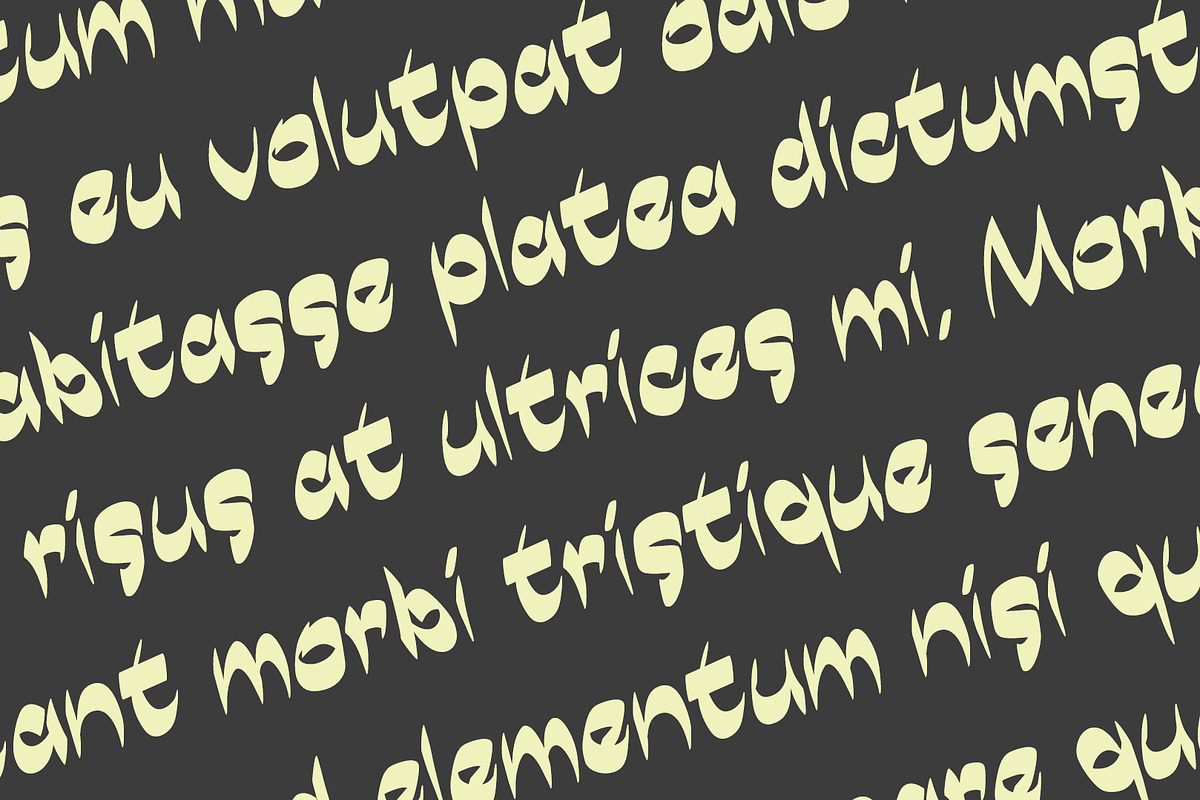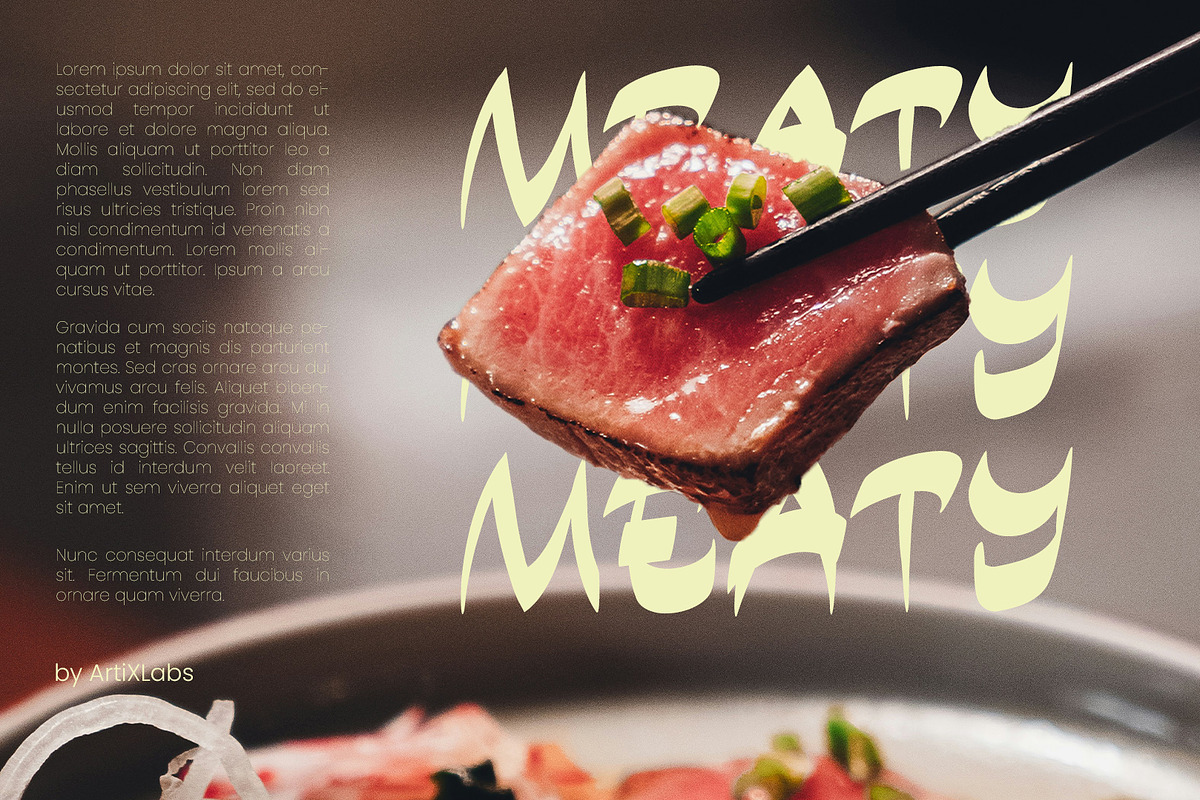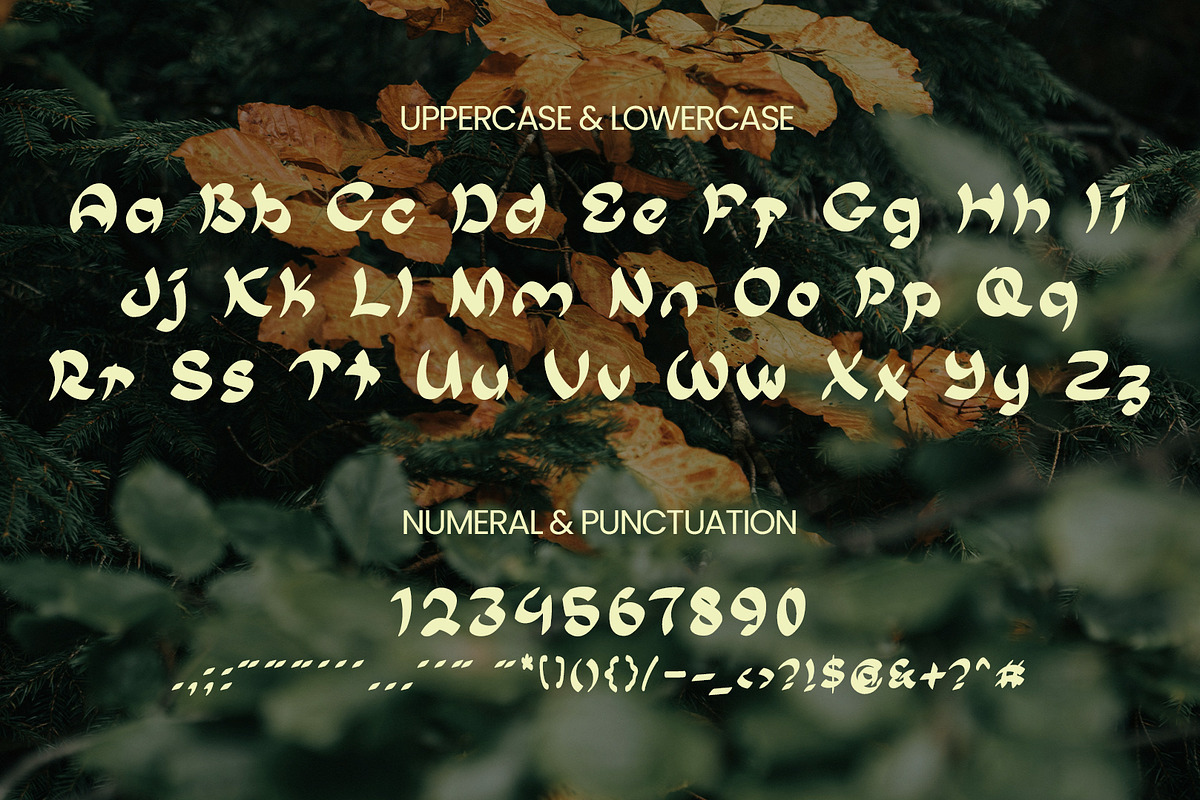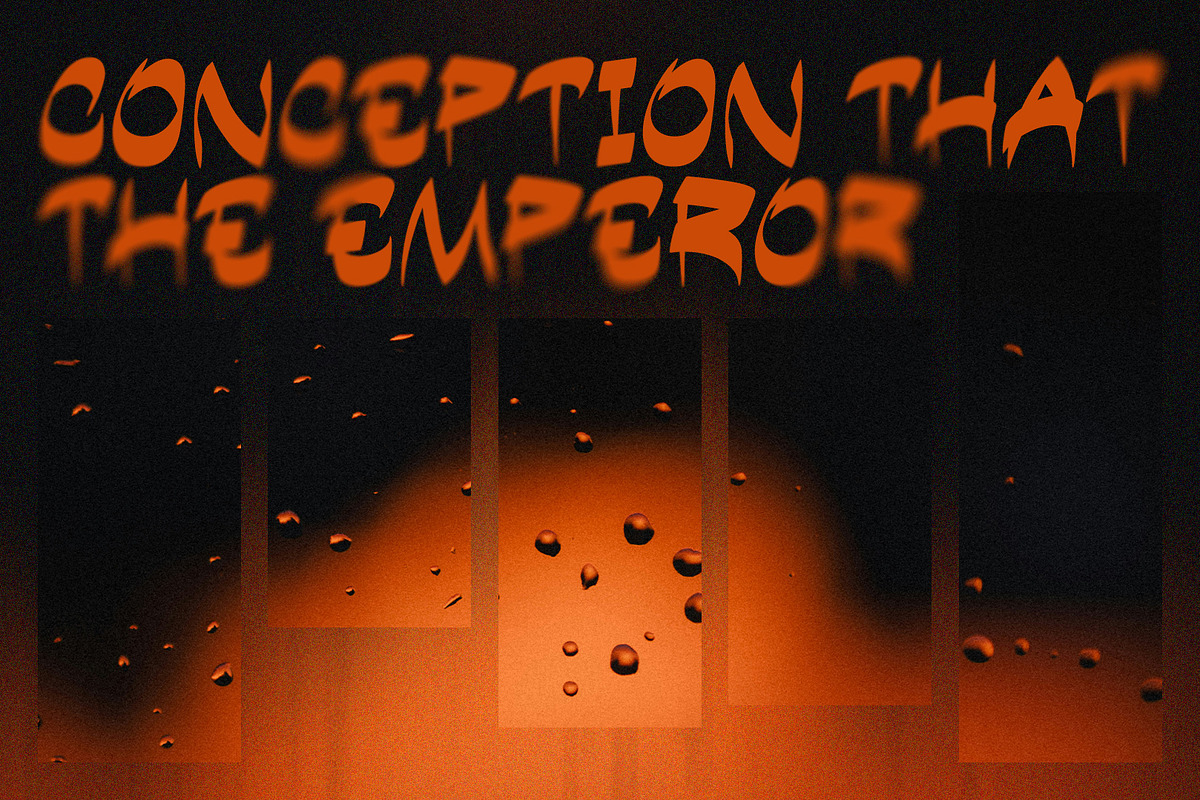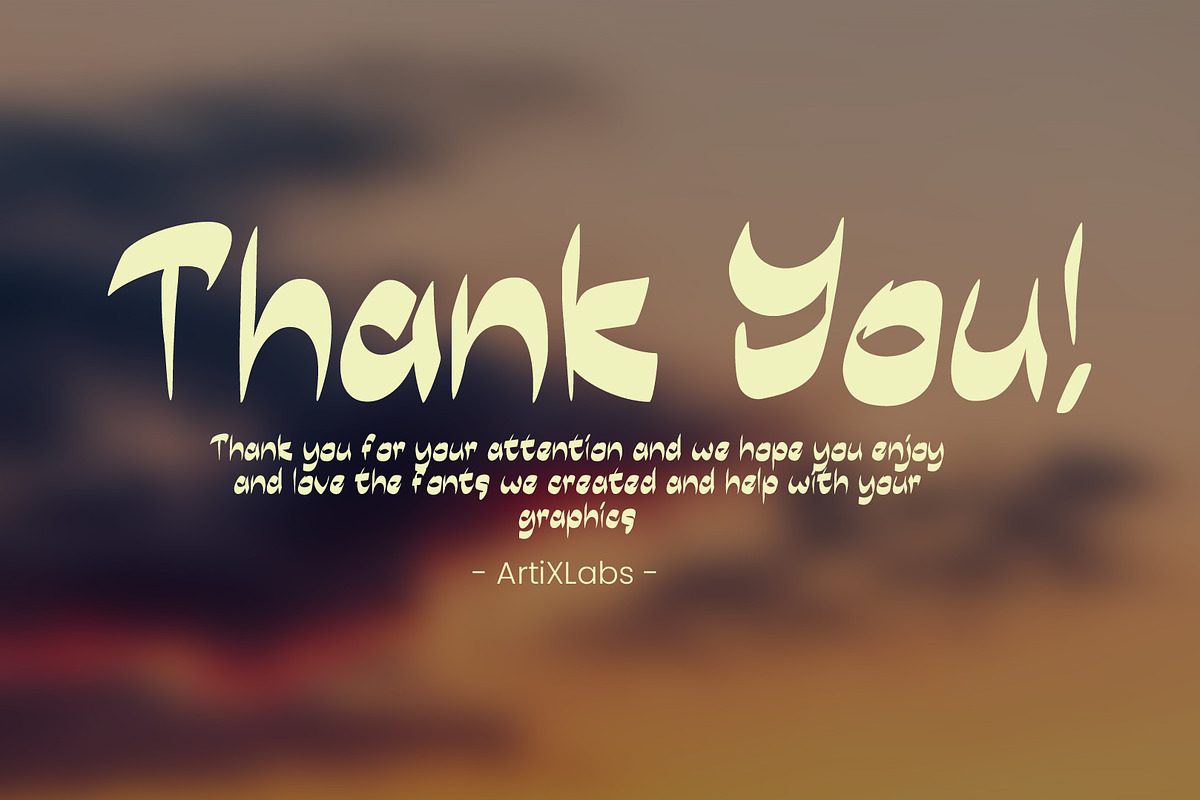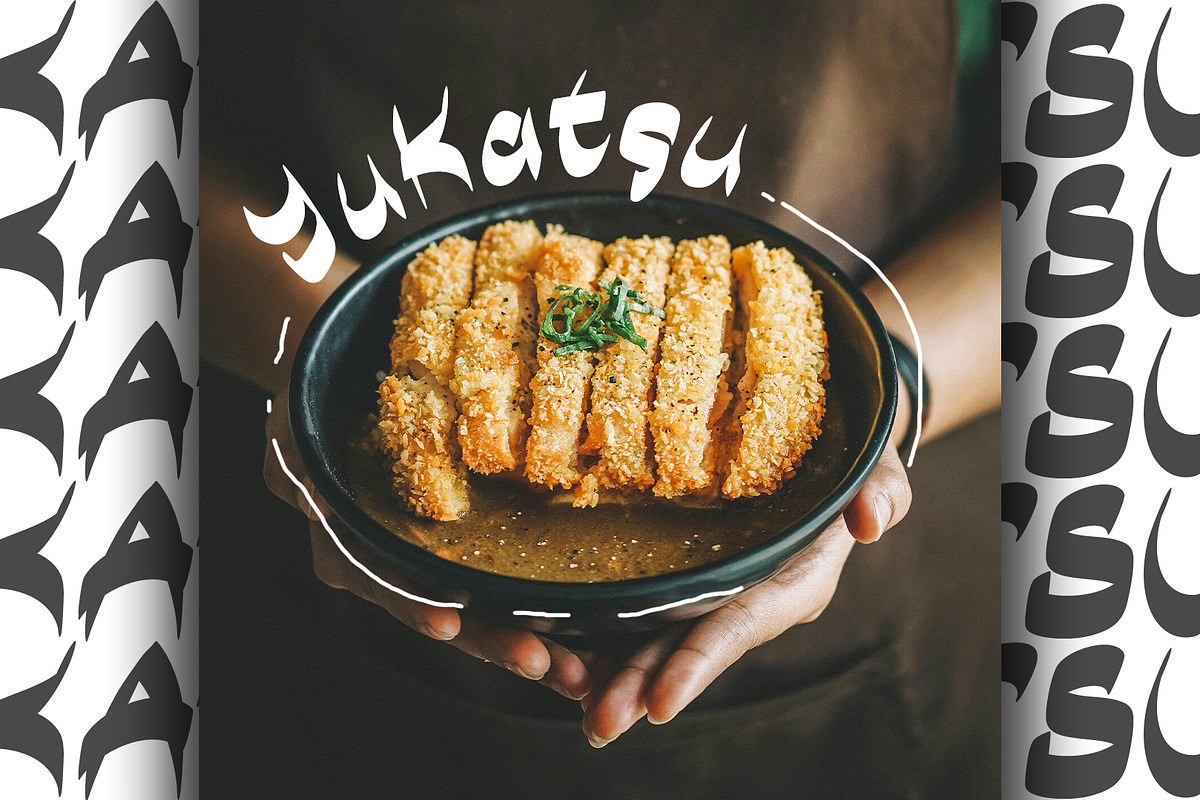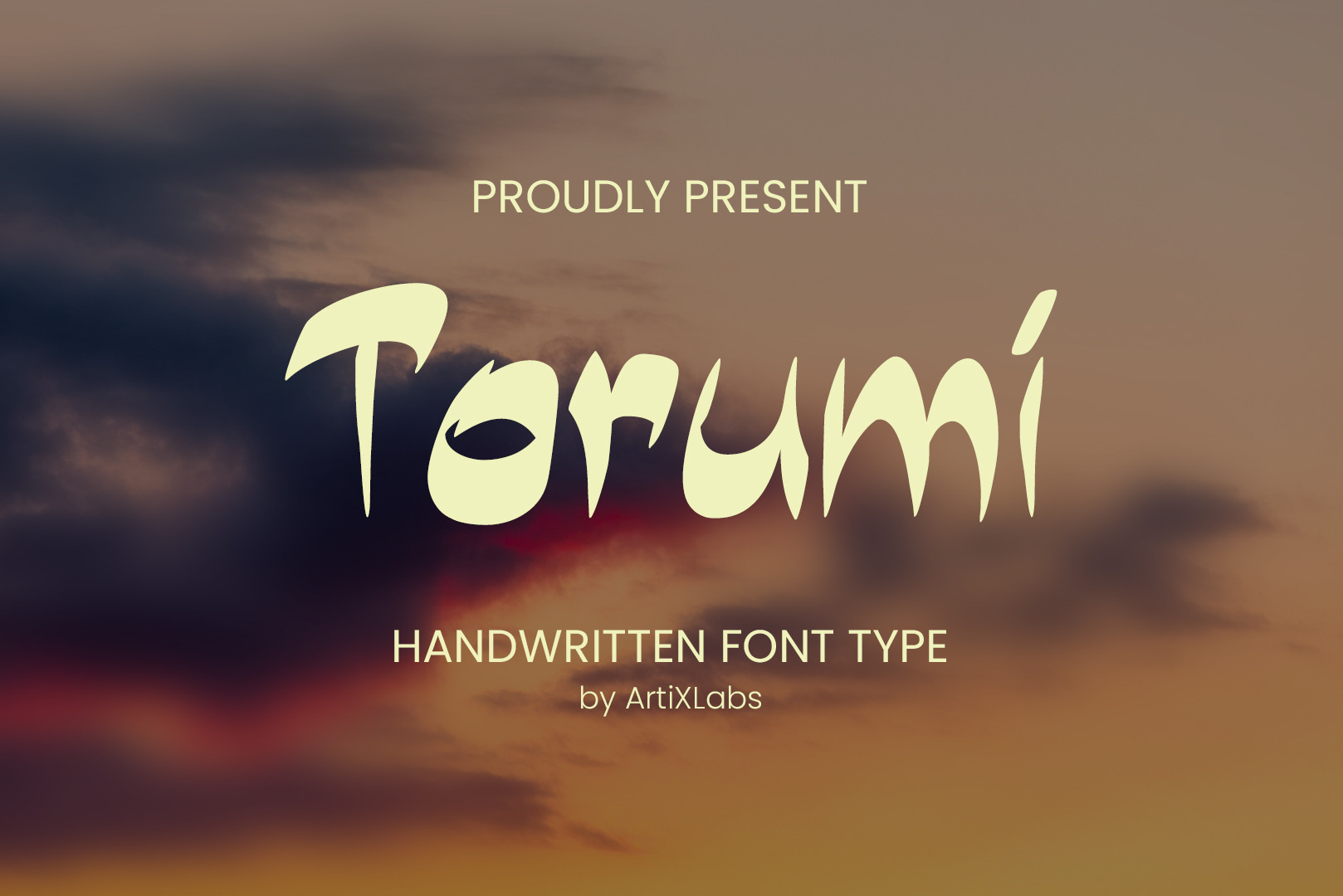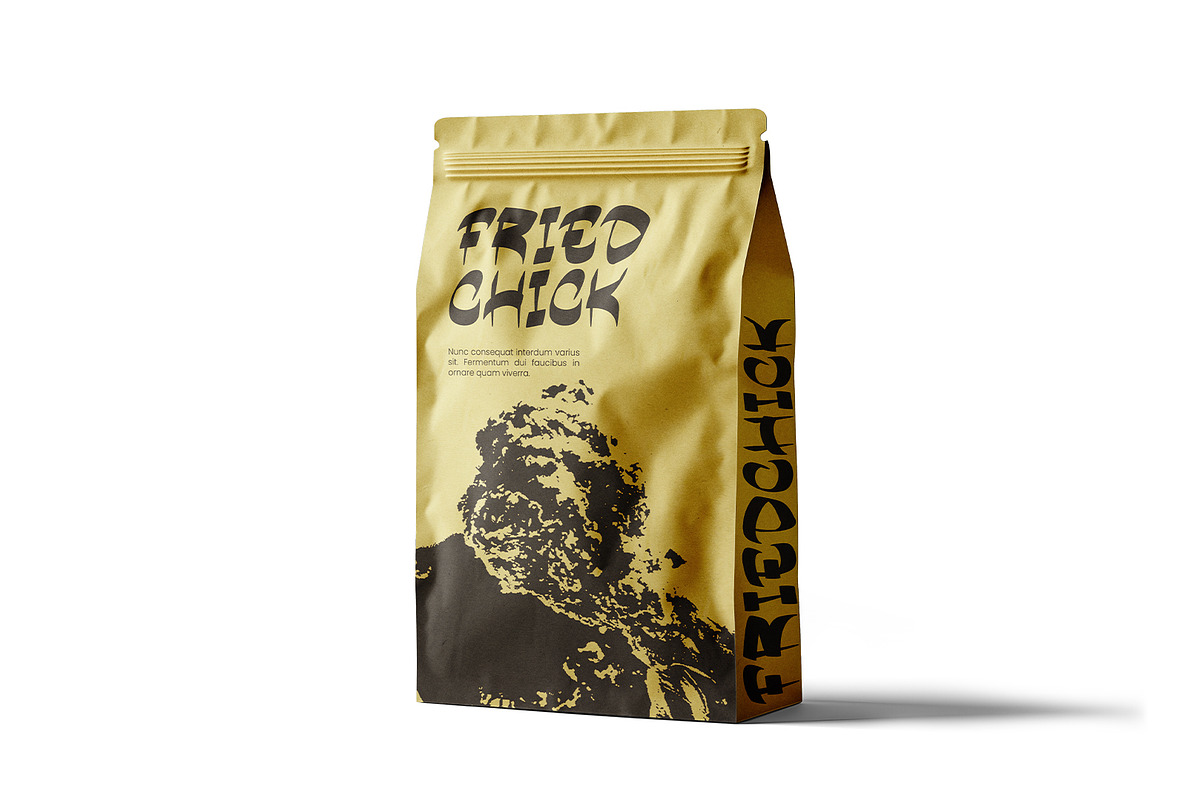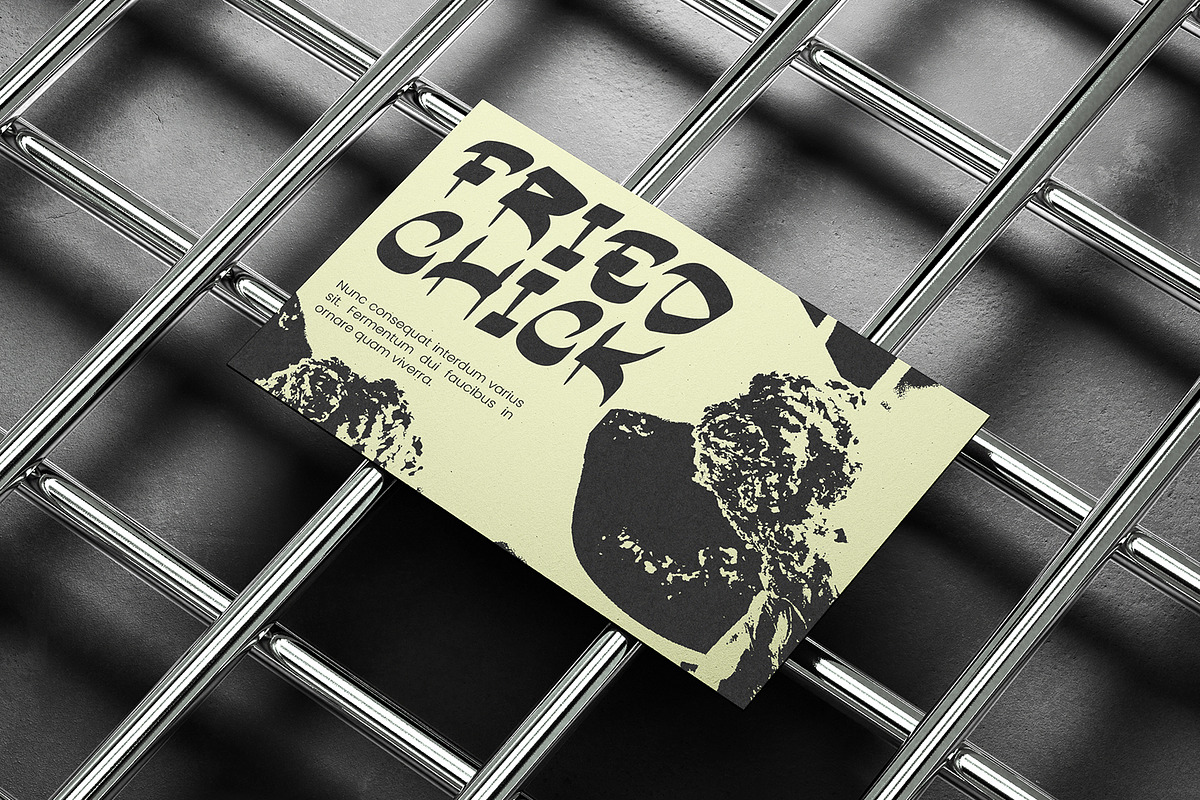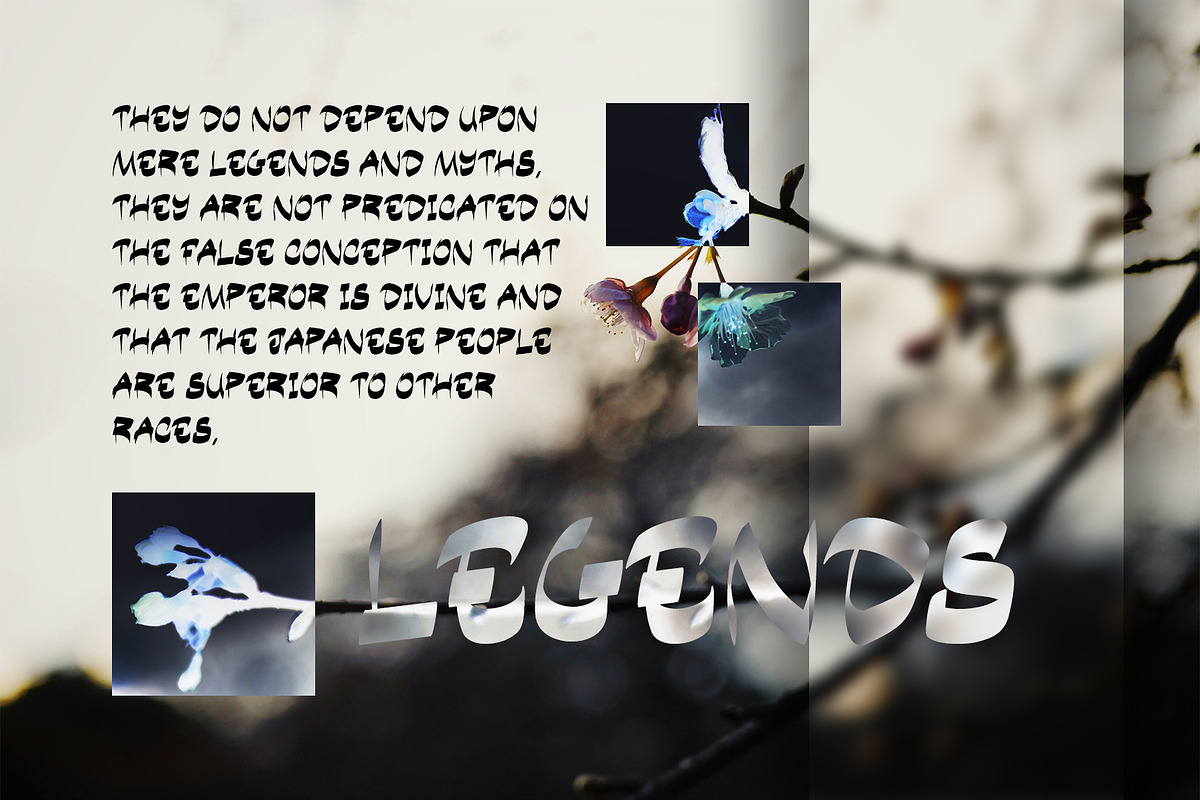
Torumi Asian Brush Style Typeface
Introducing Torumi - Handwritten Font
This Font can be used for any variety of purposes, such as: photography, Wedding, Ceremony, Packaging Products, Logo Type, Branding, T-Shirt Design, Website/Blog, Headline Magazine, Brochures and also can be used for other purpose.
This Font Template contains Classic, Cartoon, Comic, Creative, Sharp and Unique Concept.
- Uppercase & Lowercase letters